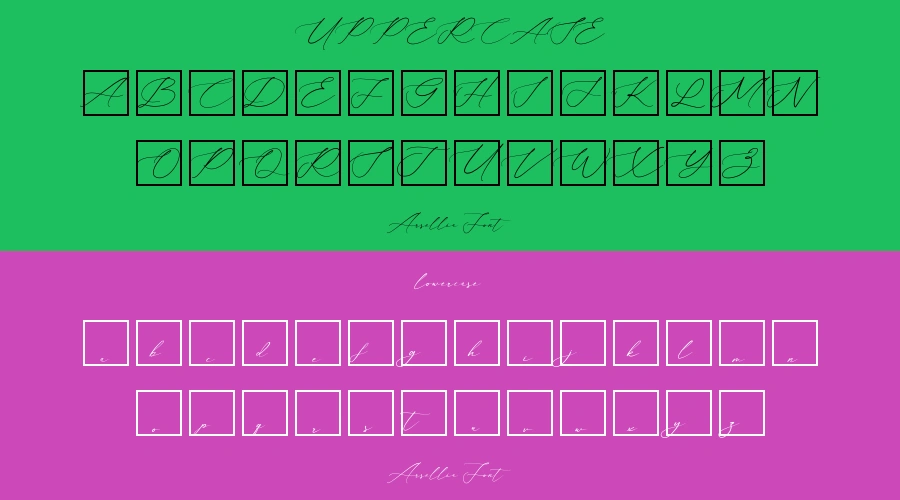
About Arsellia Font
Arsellia Font stands out for its distinctive combination of natural flow and legibility. Ideal for wine labels, it provides the functionality and cultural significance that professional projects demand. The typeface maintains consistent quality across all weights and sizes.
Key features include refined tapered strokes and practical language support, enhancing typographic expression. In warning labels applications, Arsellia Font demonstrates exceptional digital conversion. The stroke modulation and academic heritage contribute to its distinctive character and professional appeal.